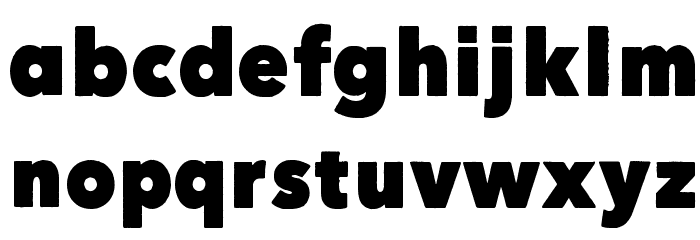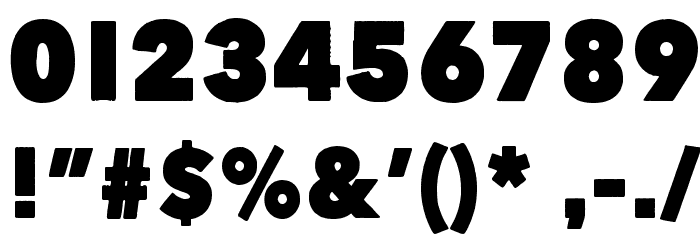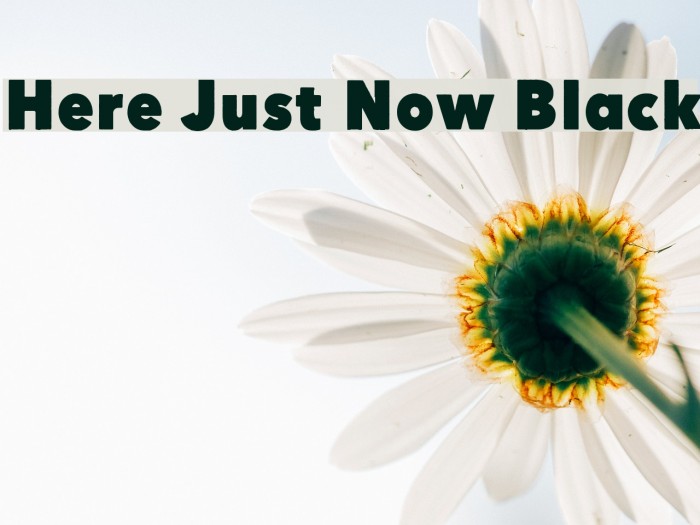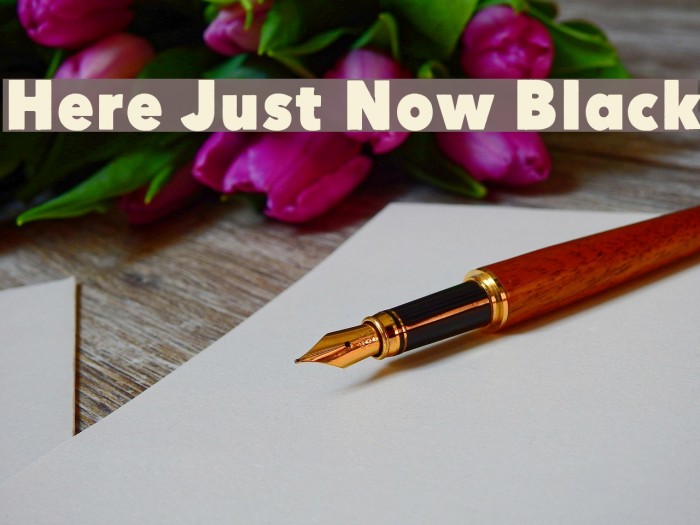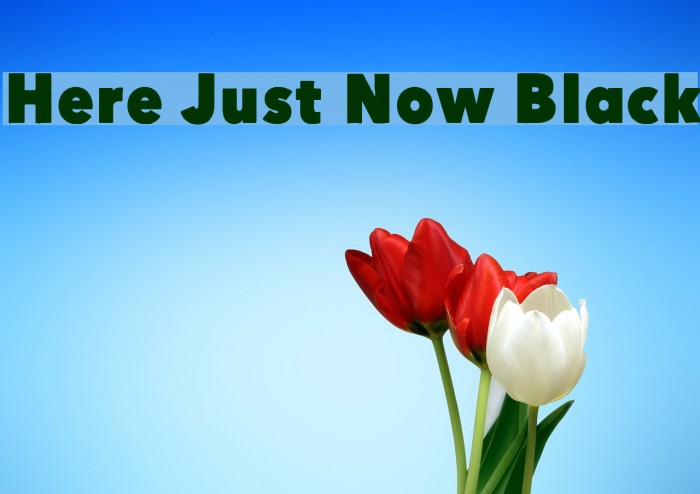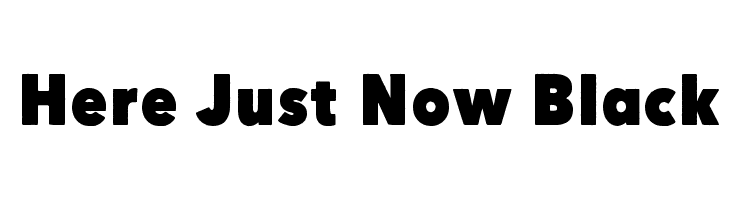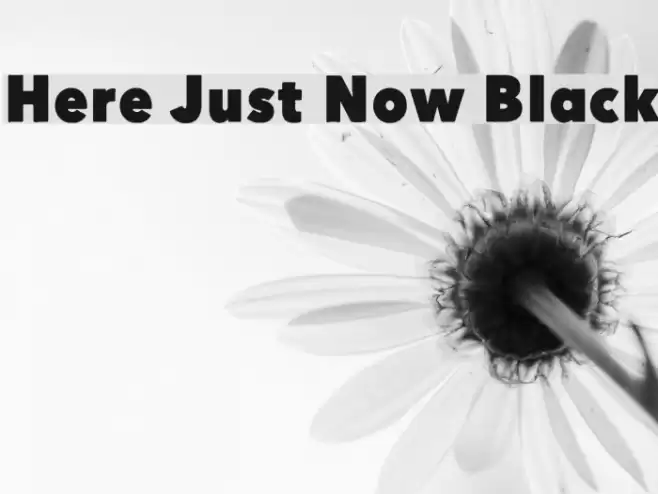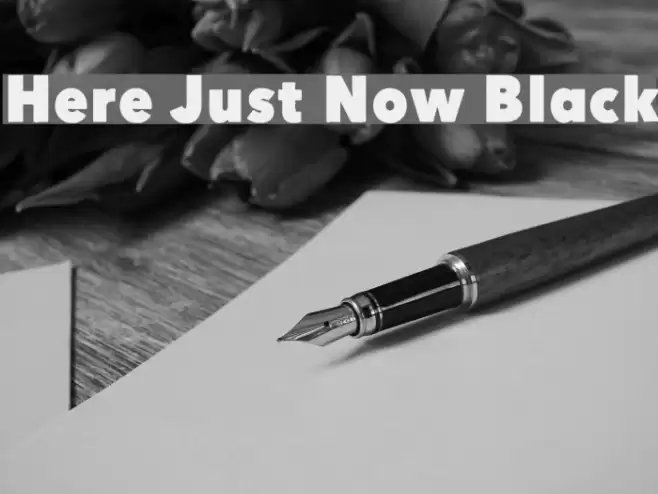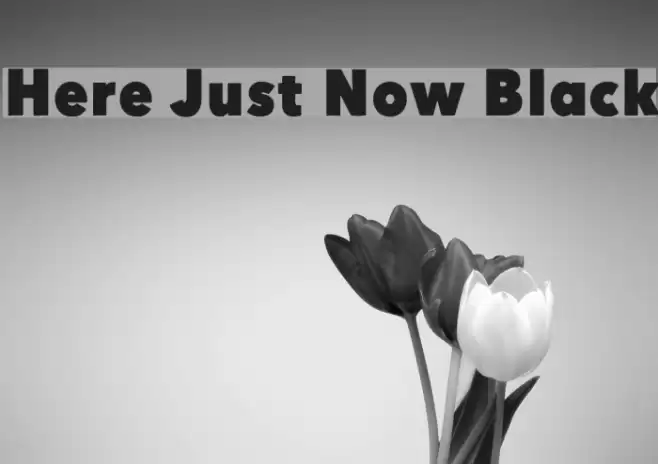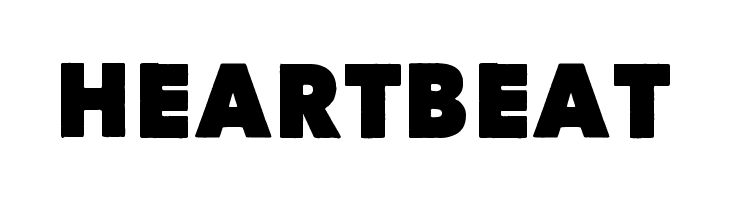
Here Just Now Black Font
This bold, impactful font features thick, uniform strokes that create a strong visual presence. The characters are well-defined with a slightly condensed appearance, making them ideal for grabbing attention. The uppercase and lowercase letters maintain a consistent style, with rounded edges that soften the overall look. The numerals are equally bold, ensuring they stand out in any context. Special characters are included, matching the robust style of the alphabet. This font's design is perfect for projects that require a commanding and assertive typeface.
A bold, impactful font with thick, uniform strokes and a slightly condensed appearance.
- Proposed Projects: Ideal for headlines, posters, branding, and advertising where a strong visual impact is needed.